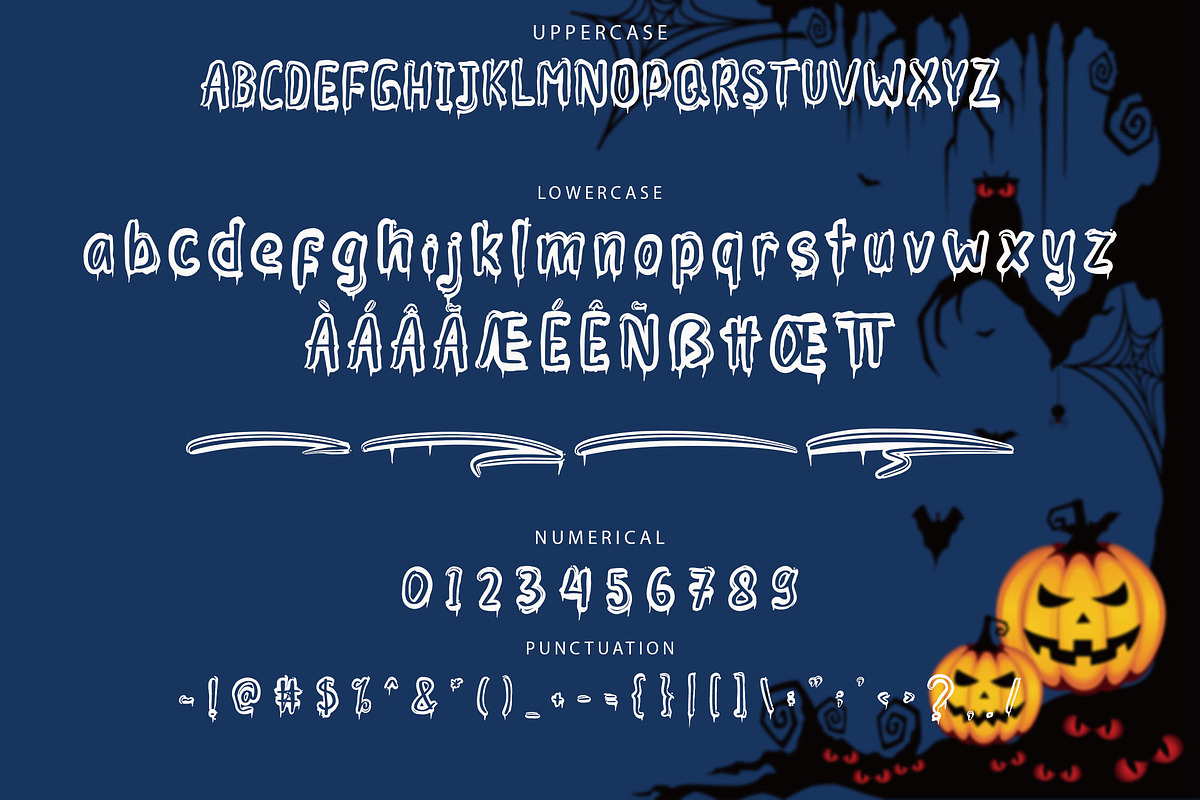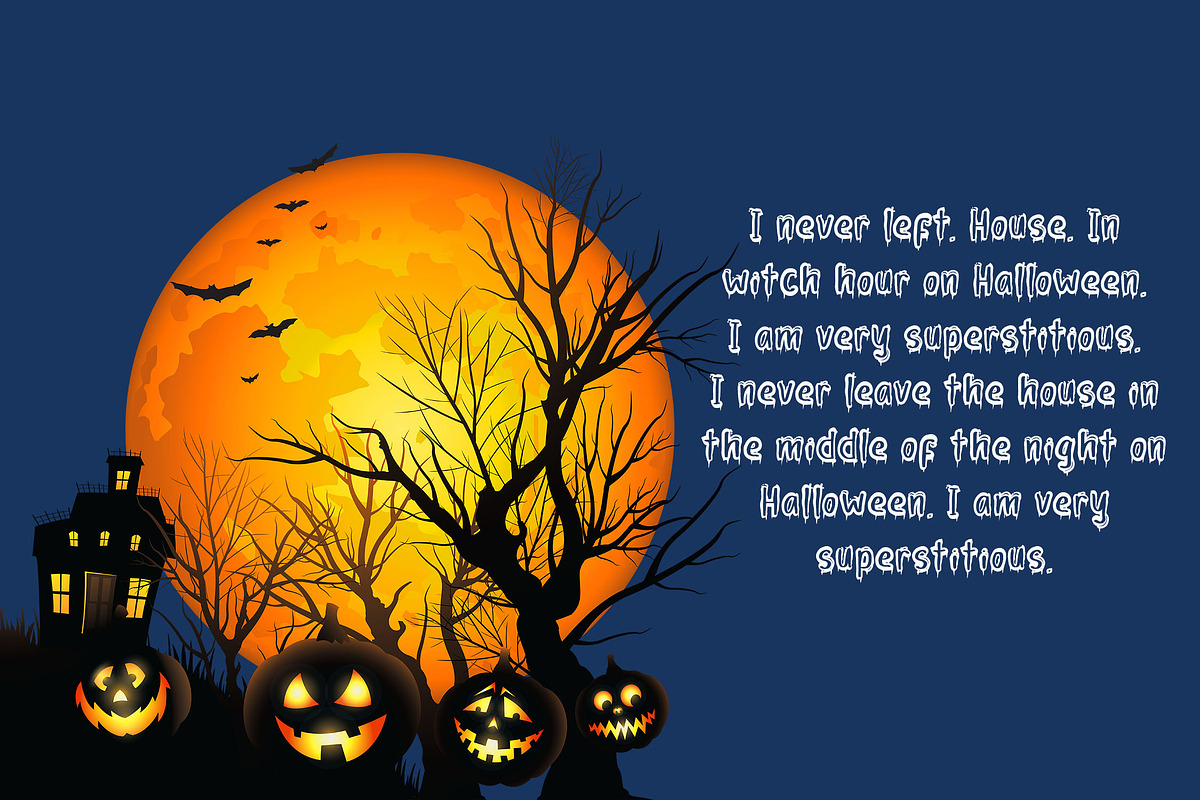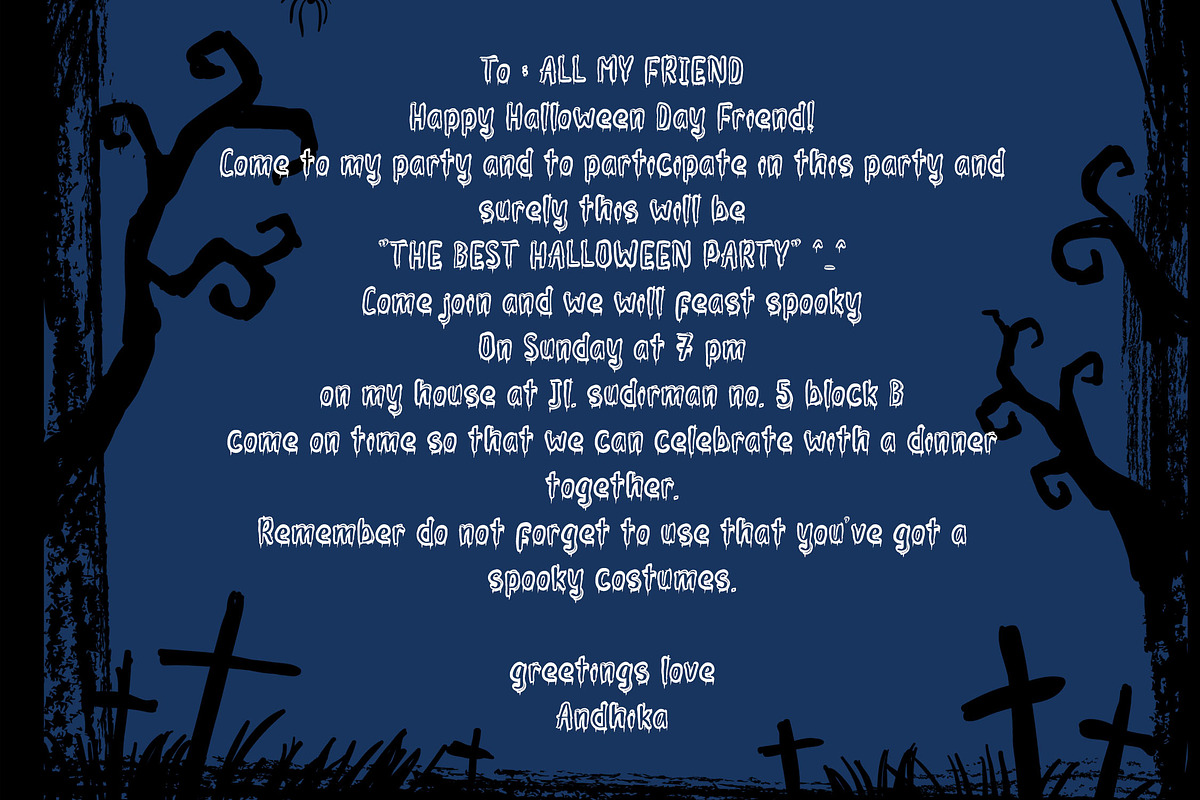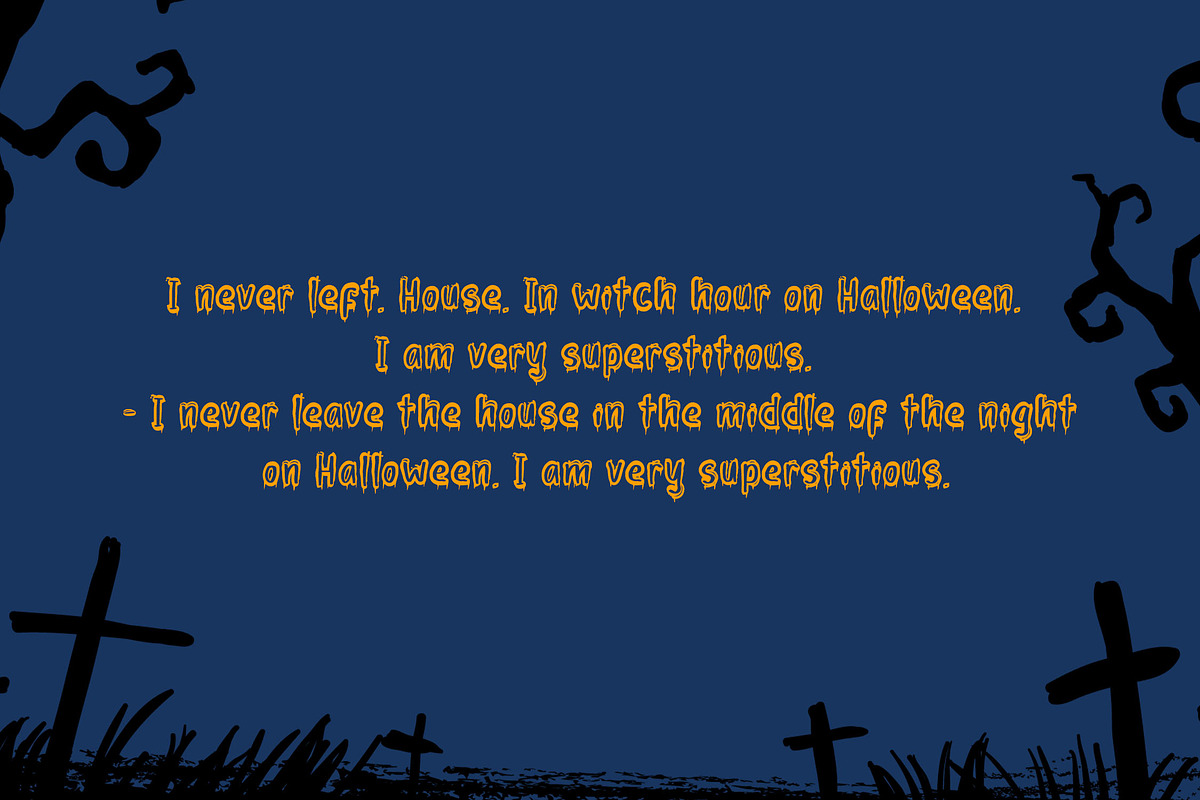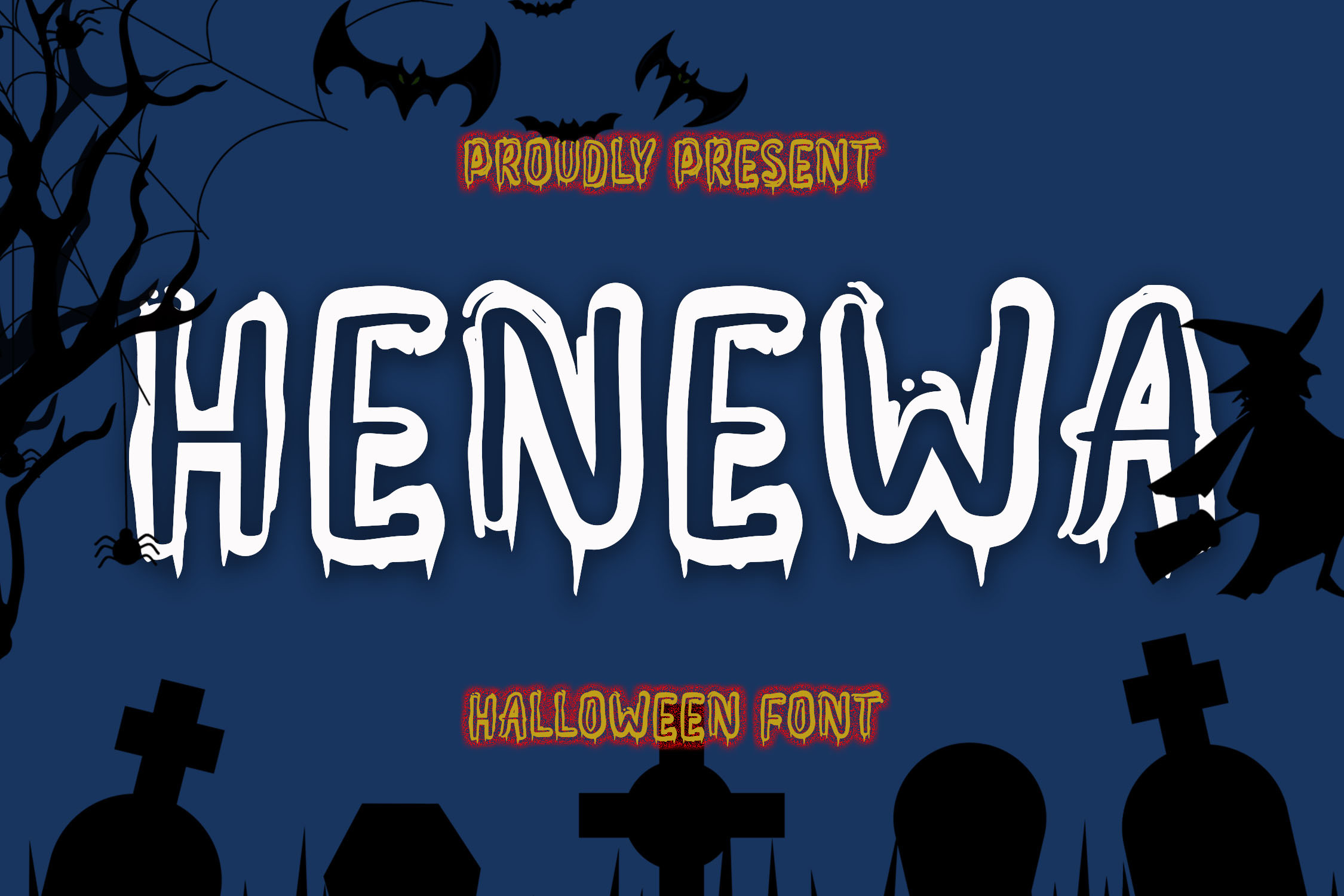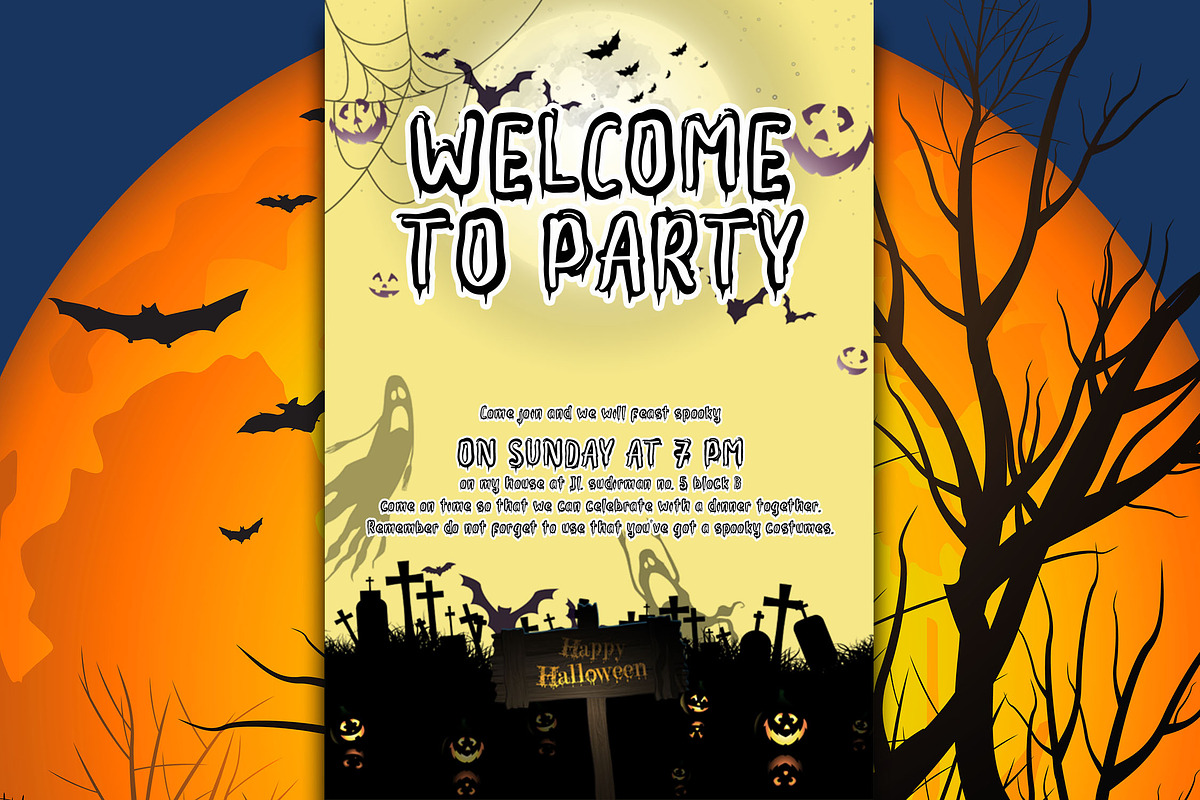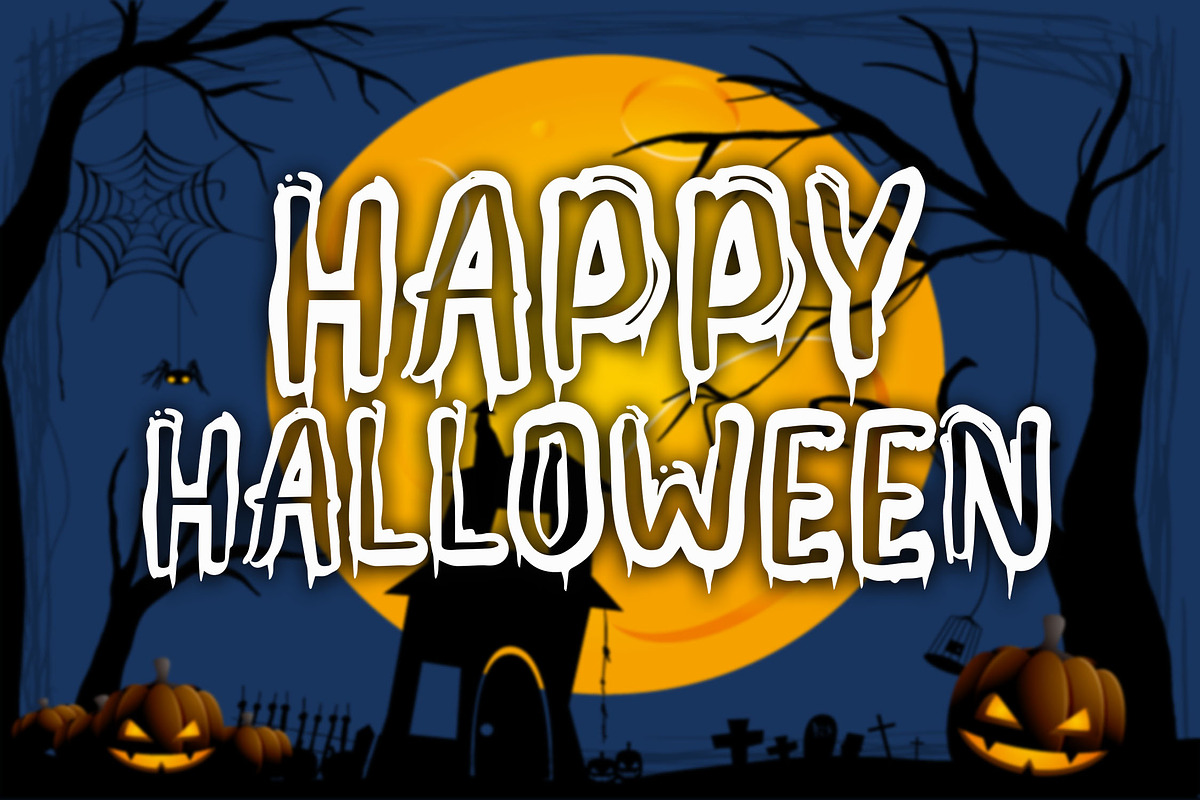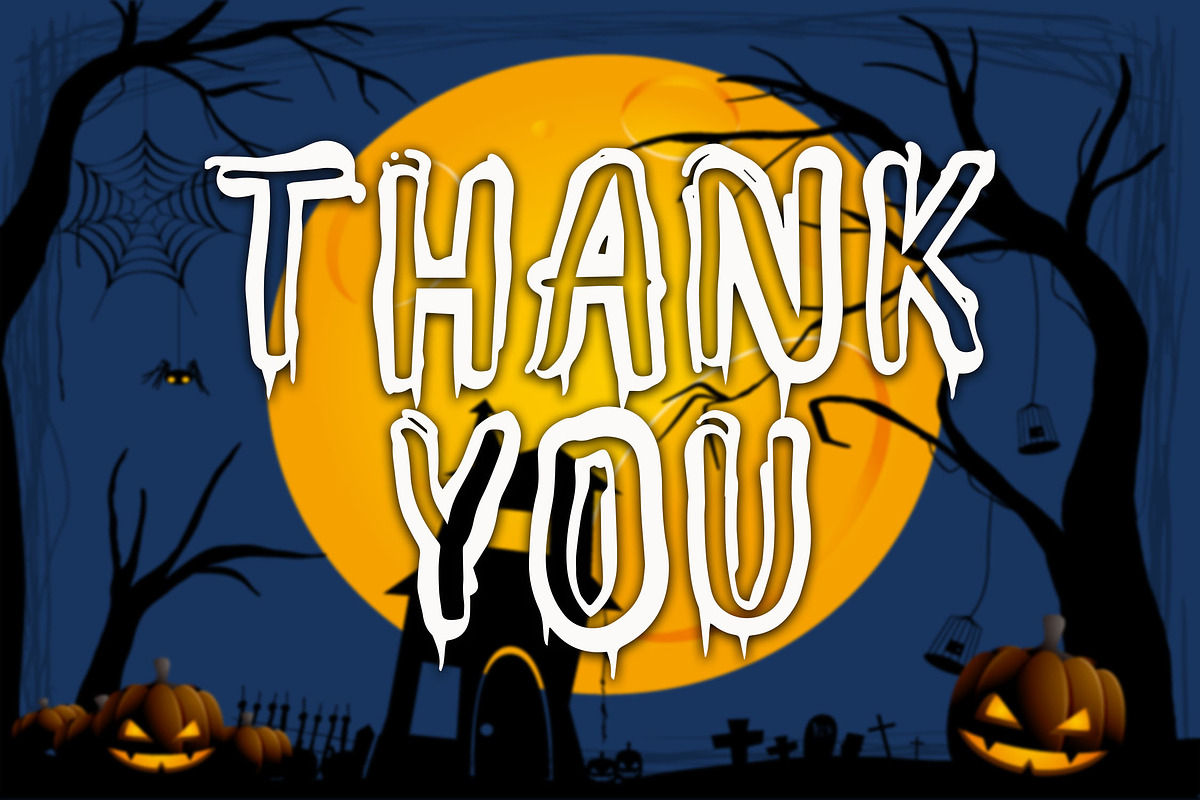
HENEWA - Halloween Font
DETAILS
HENEWA is a horror Halloween themed font with a very unique outline rough character. The HENEWA font is perfect for Halloween cards and Halloween banner designs. This font is suitable for making previews and covers, logo designs, shirt designs, and other Halloween design needs.
- Stylistic Alternate